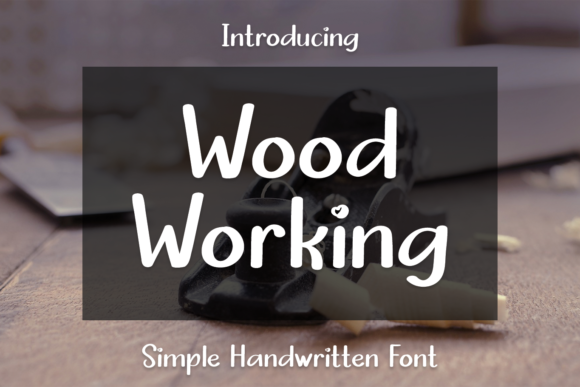
Wood Working Font: A Cute and Friendly Handwritten Font for Children-Themed Designs
Are you looking for a font that can add a touch of warmth and playfulness to your designs? Look no further than the Wood Working font. This cute, friendly, and fun handwritten font is perfect for children-themed designs, especially when combined with bright colors. In this article, we’ll take a closer look at the Wood Working font, its features, and how you can use it to create engaging and visually appealing designs.
What is Wood Working Font?
Wood Working is a handwritten font that is designed to resemble the handwriting of a child. It’s a unique and charming font that has a friendly and approachable feel to it. The font is made up of rounded letters with subtle imperfections, giving it a homemade and organic look. The Wood Working font is perfect for designs that require a personal touch, such as children’s books, greeting cards, and posters.
Key Features of Wood Working Font
- Cute and Friendly: The Wood Working font has a playful and friendly feel to it, making it perfect for children’s designs.
- Handwritten: The font has a handmade look, with subtle imperfections that give it a unique character.
- Rounded Letters: The font features rounded letters that are soft and approachable.
- Multi-Language Support: The Wood Working font supports multiple languages, making it a versatile choice for designers.
Why Use Wood Working Font?
There are many reasons why you should consider using the Wood Working font in your designs. Here are a few:
Reasons to Use Wood Working Font
- Perfect for Children-Themed Designs: The Wood Working font is specifically designed for children’s designs, making it a great choice for projects such as children’s books, nursery rhymes, and kids’ party invitations.
- Easy to Read: The font is clear and easy to read, making it perfect for designs that require a lot of text.
- Versatile: The Wood Working font can be used for a wide range of designs, from posters and flyers to greeting cards and invitations.
- Unique: The font has a unique and distinctive look that will set your designs apart from others.
How to Use Wood Working Font?
Using the Wood Working font is easy. Here are a few tips to get you started:
Tips for Using Wood Working Font
- Pair with Bright Colors: The Wood Working font looks great when paired with bright and bold colors. Try using it with colors like pink, blue, and yellow to create a fun and playful design.
- Use for Headings and Titles: The font is perfect for headings and titles, where you want to make a bold statement.
- Experiment with Different Sizes: The Wood Working font looks great in different sizes. Experiment with different sizes to create visual interest and hierarchy in your design.
- Combine with Other Fonts: The Wood Working font can be combined with other fonts to create a unique and interesting design. Try pairing it with a sans-serif font for a contrasting look.
Best Practices for Using Wood Working Font
Here are a few best practices to keep in mind when using the Wood Working font:
Best Practices for Using Wood Working Font
- Use for Children’s Designs: The Wood Working font is specifically designed for children’s designs. Use it for projects that are aimed at kids.
- Keep it Simple: The font is best used for simple designs. Avoid using it for complex designs that require a lot of text.
- Test for Readability: Make sure to test the font for readability, especially when using it for body text.
- Be Creative: Don’t be afraid to experiment and try new things with the Wood Working font. Its unique look makes it perfect for creative and innovative designs.
The Wood Working font is a unique and charming font that is perfect for children’s-themed designs. Its cute and friendly look makes it a great choice for projects such as children’s books, nursery rhymes, and kids’ party invitations. With its rounded letters and subtle imperfections, the Wood Working font has a homemade and organic look that will add a touch of warmth and playfulness to your designs. By following the tips and best practices outlined in this article, you can create engaging and visually appealing designs that will delight your audience.